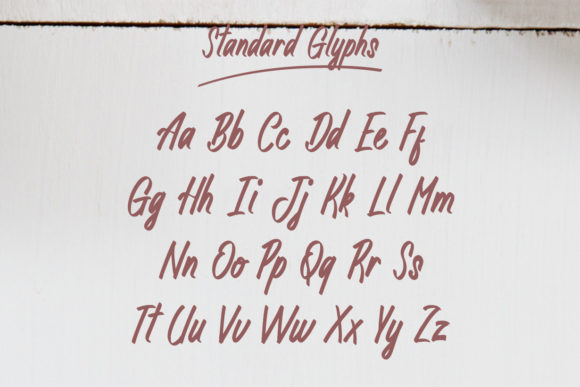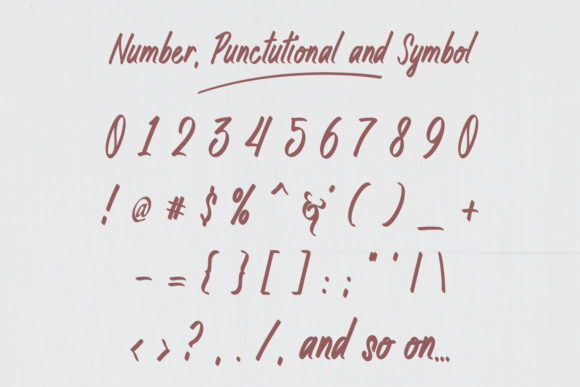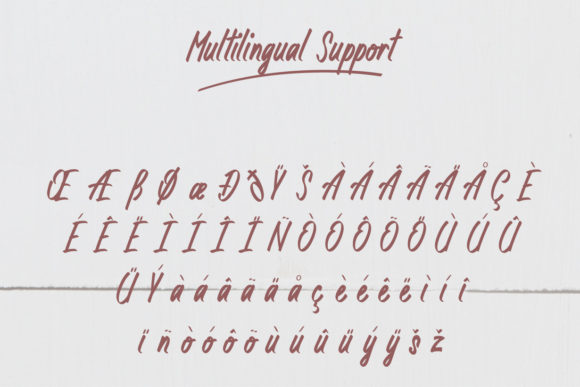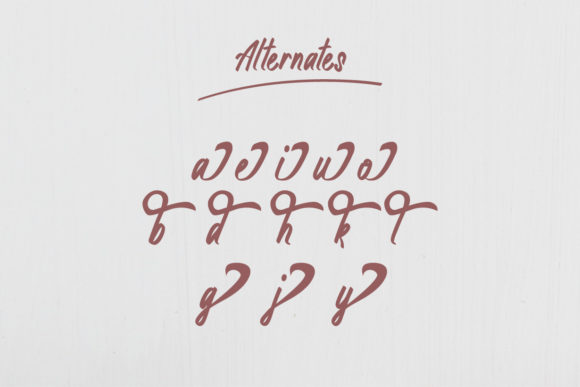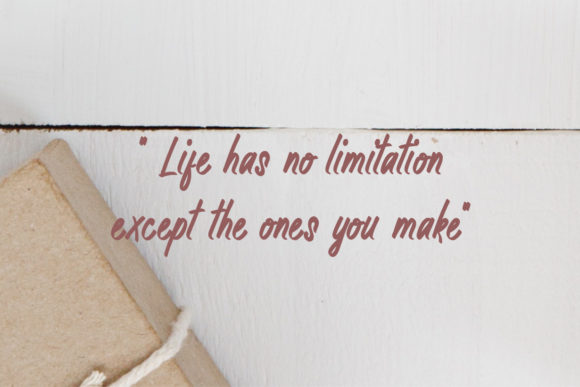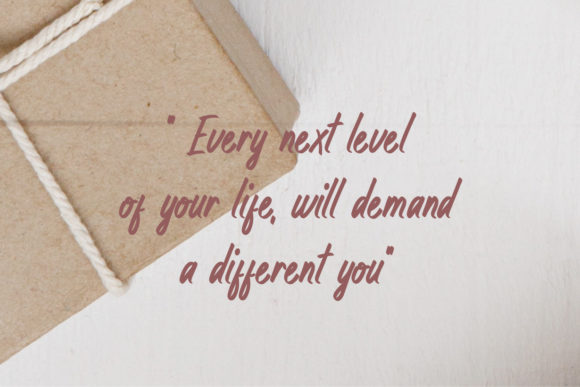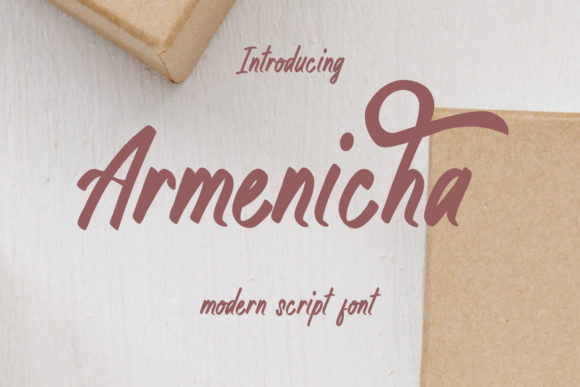
Introducing Armenicha Font: Elevate Your Designs with Elegance and Sophistication
Are you on the lookout for a font that exudes class, sophistication, and a touch of modernity? Look no further than Armenicha, an exquisite handwritten font designed to capture your heart and elevate your projects to new heights. With its perfect blend of traditional calligraphic influences and contemporary flair, Armenicha is poised to become your go-to choice for a wide range of design endeavors.
The Charm of Armenicha
Armenicha is more than just a font; it’s a statement piece. Its elegant, flowing lines and carefully crafted letterforms are a testament to meticulous design and a deep understanding of typographic art. This beautiful handwritten font is not only a pleasure to look at but also a versatile tool that can be used across various platforms and projects, from branding and advertising to packaging and digital media.
Classy Calligraphic Roots
One of the standout features of Armenicha is its calligraphic roots. The font masterfully incorporates the fluidity and expressiveness of calligraphy, giving it a distinctly classy and sophisticated feel. Each letter is a work of art, showcasing a level of craftsmanship that sets Armenicha apart from more generic fonts. This calligraphic influence adds a layer of elegance and refinement to any project, making it perfect for designs that require a touch of luxury or high-end appeal.
Contemporary and Fresh
While Armenicha draws inspiration from traditional calligraphy, it also boasts a distinctly contemporary feel. The font’s design is carefully balanced to ensure it feels fresh and modern, making it highly versatile for a wide range of applications. Whether you’re working on a cutting-edge digital project or a more traditional print design, Armenicha seamlessly integrates into any aesthetic, adding a touch of sophistication and style.
Why Choose Armenicha?
So, what makes Armenicha the perfect choice for designers and crafters? Here are just a few reasons why this exquisite font stands out:
- Elegance and Sophistication: Armenicha brings a level of class and refinement to any project, making it perfect for designs that demand a high-end look and feel.
- Versatility: With its unique blend of traditional and modern elements, Armenicha can be used across a wide range of projects, from digital media to print materials.
- Easy to Read: Despite its elegant and flowing design, Armenicha remains highly legible, making it suitable for both headings and body text.
- Unique and Memorable: In a sea of generic fonts, Armenicha offers a distinctive look that can help your designs stand out and leave a lasting impression.
Applications of Armenicha
The possibilities are endless when it comes to using Armenicha in your designs. Here are a few ideas to get you started:
- Branding and Logo Design: Create a lasting impression with a logo that exudes elegance and sophistication.
- Wedding and Event Stationery: Add a touch of luxury to your wedding invitations, menus, and other event materials.
- Packaging Design: Elevate your product packaging with a font that communicates quality and refinement.
- Digital Media: Use Armenicha in your website designs, social media graphics, and digital advertisements to stand out in a crowded online space.
Armenicha is more than just a font; it’s a design statement. With its exquisite blend of calligraphic elegance and modern sophistication, this beautiful handwritten font is sure to capture your heart and elevate your designs to new heights. Whether you’re a professional designer or a crafter looking for that special touch, Armenicha offers the perfect combination of style, versatility, and charm. So why wait? Fall in love with Armenicha and bring your projects to the highest levels of creativity and sophistication.